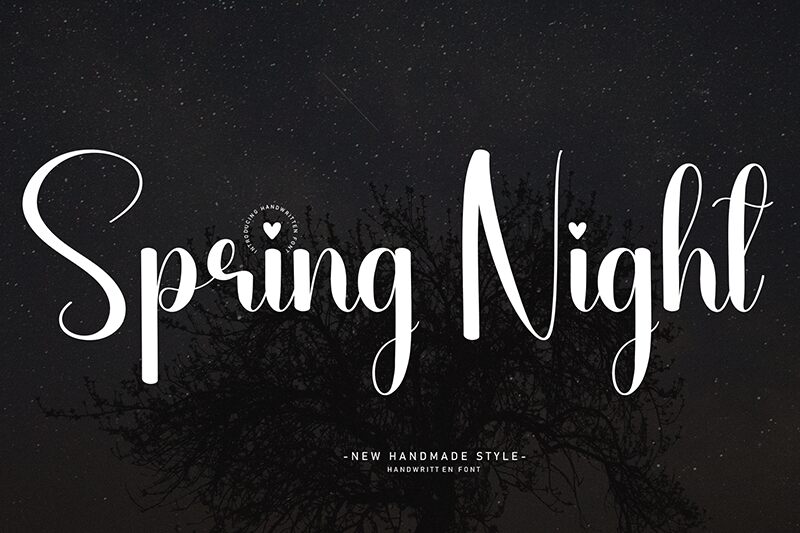
Spring Night
Spring Night font by Andi Moz is an elegant handwritten font with a modern appeal. It is romantic, decorative, and whimsical, but still with the simplicity that allows for versatile applications. Elements of floral and hearts connect gracefully to every letter.